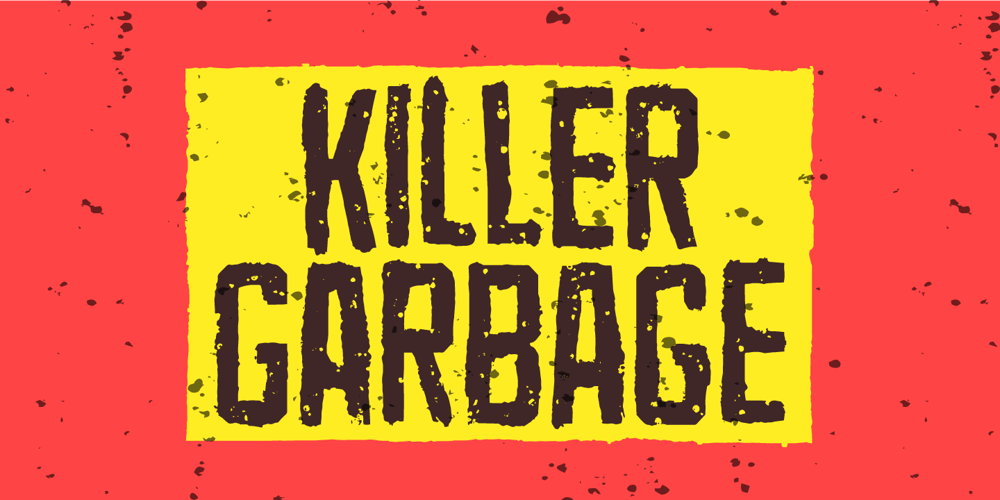
Killer Garbage Font Family was designed by Jakob Fischer and published by PizzaDude.dk. Killer Garbage contains 2 styles and family package options. Killer Garbage is a grunge version of my Spitzenklasse font. It’s worn and torn real bad – but not more than the font is still legible even at very small sizes.I don’t fancy grunge fonts that only has one or two versions of each letter available. The text usually gets very static and predictable, because the same letters are repeated again and again. That’s why I have included 6 different versions of each letter in this font! And the great thing about this is that the letters automatically cycles as you type! Forget everything about repeating the same letters all the time!!!